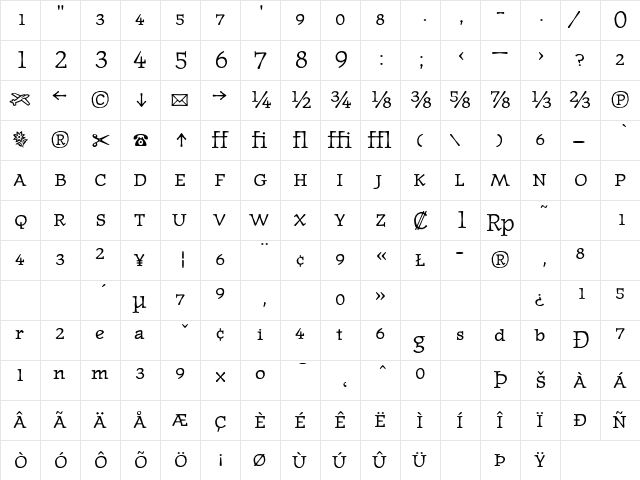
JournalTextFractions Regular
Design Context for JournalTextFractions Typeface
JournalTextFractions takes a measured approach to typography — its balanced proportions and neutral character make it a reliable workhorse for both digital and print work.